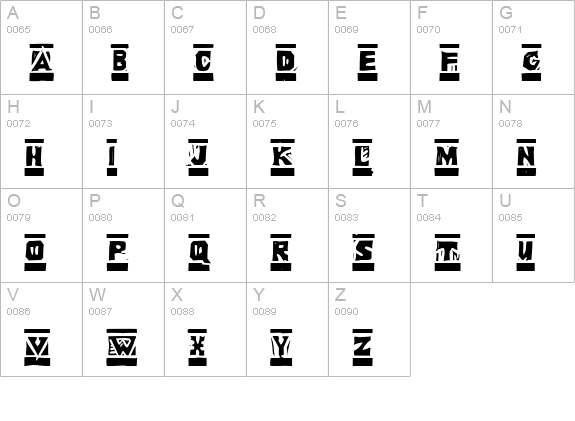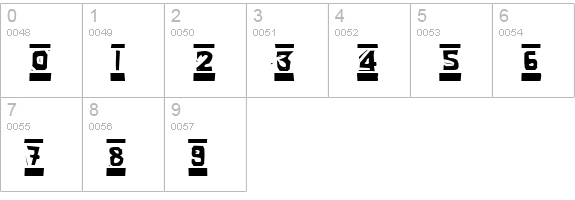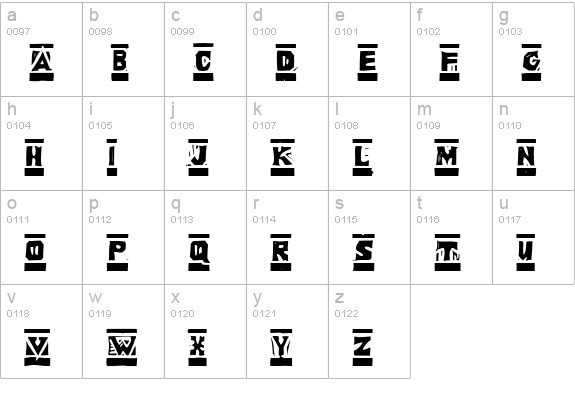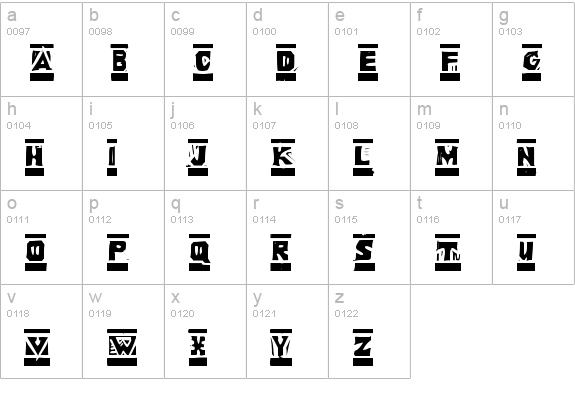
P22 Woodcut Font Details
P22 Woodcut font is a stunning typeface that beautifully captures the essence of traditional woodcut printing. With its intricate details and bold strokes, this font effortlessly adds a touch of vintage charm to any design project. The letters in P22 Woodcut are meticulously crafted to resemble the hand-carved quality of woodcut illustrations. Each character exudes a rustic elegance, as if it were painstakingly etched onto a wooden block by a skilled artisan. The texture and weight of the strokes give the font a tactile feel, creating a unique visual experience for the reader. This font is not only visually appealing, but it also carries a sense of history and craftsmanship. It harks back to the days when printing was a labor-intensive process, and each printed piece was a work of art. P22 Woodcut brings that nostalgic warmth and authenticity to the modern digital realm. The versatility of P22 Woodcut font allows it to be used in a wide range of creative projects. Whether you're designing a vintage-inspired poster, a book cover, a logo, or even a website, this font will add a touch of character and uniqueness to your work. The best part is, P22 Woodcut font is freely available to download at FontsMarket.com. You can easily access this font and start incorporating its timeless charm into your designs. So why wait? Let P22 Woodcut font transport you to a bygone era of craftsmanship and artistry, and bring a touch of nostalgia to your creative endeavors.